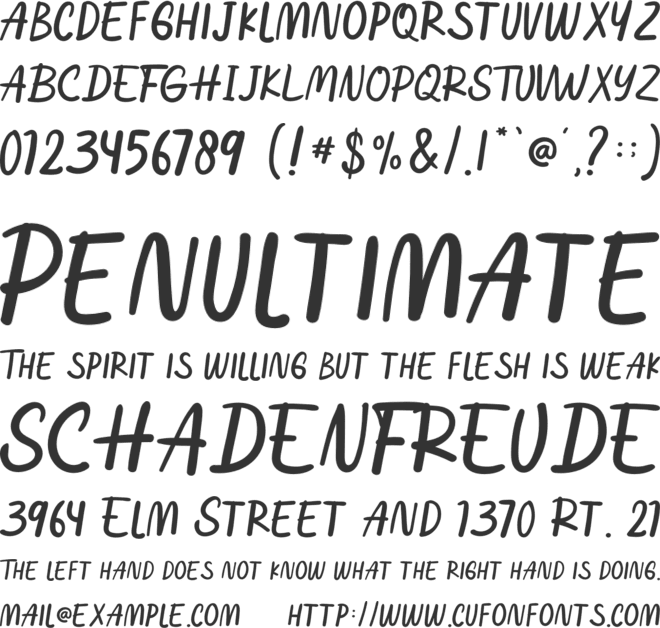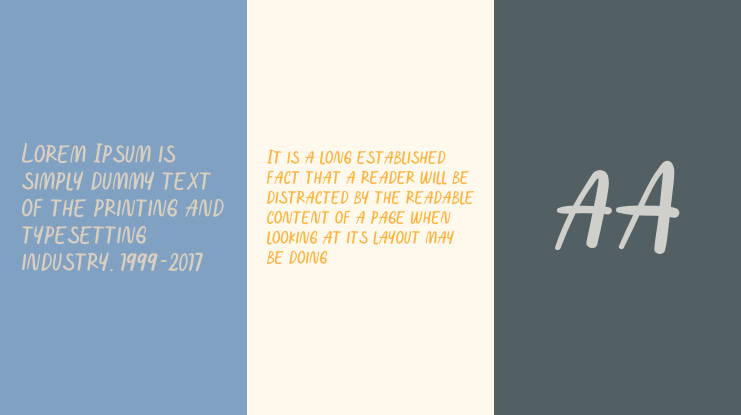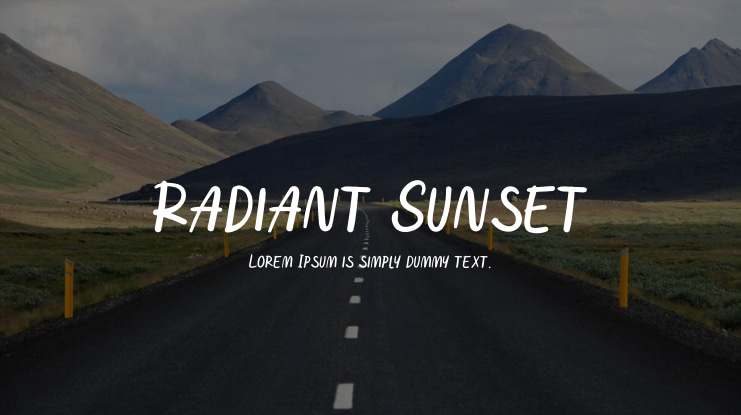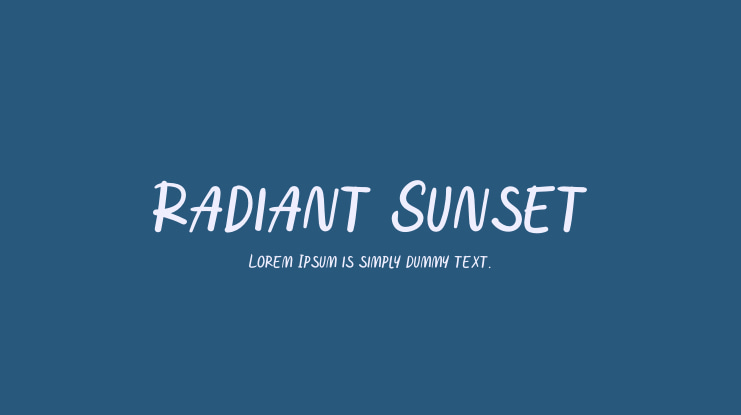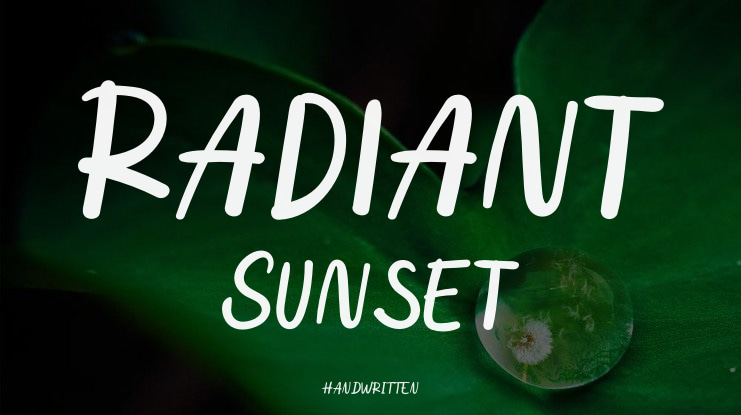
Radiant Sunset Font
Radiant Sunset is a beautifully crafted handwritten font that captures the essence of natural, flowing penmanship. Each character is designed with meticulous attention to detail, evoking a sense of warmth and authenticity.